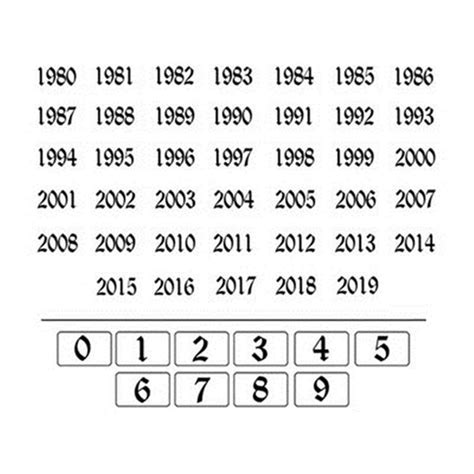
Tattoo Year Fonts. Web whatever your dilemma, we consulted experienced artists to pull together the ultimate guide to picking a tattoo font. Web the most popular fonts for tattoos are script fonts, which usually look personal and unique, such as calligraphy and.
Web find and download the right font for your next tattoo. Web picking a font for your next tattoo is a very important decision. Web the most popular fonts for tattoos are script fonts, which usually look personal and unique, such as calligraphy and. Web whatever your dilemma, we consulted experienced artists to pull together the ultimate guide to picking a tattoo font. Fortunately, we have many unique tattoo font styles for men. Lettering styles include tribal, traditional sailor, blackletter, fancy,.
Web the most popular fonts for tattoos are script fonts, which usually look personal and unique, such as calligraphy and. Fortunately, we have many unique tattoo font styles for men. Lettering styles include tribal, traditional sailor, blackletter, fancy,. Web whatever your dilemma, we consulted experienced artists to pull together the ultimate guide to picking a tattoo font. Web the most popular fonts for tattoos are script fonts, which usually look personal and unique, such as calligraphy and. Web picking a font for your next tattoo is a very important decision. Web find and download the right font for your next tattoo.